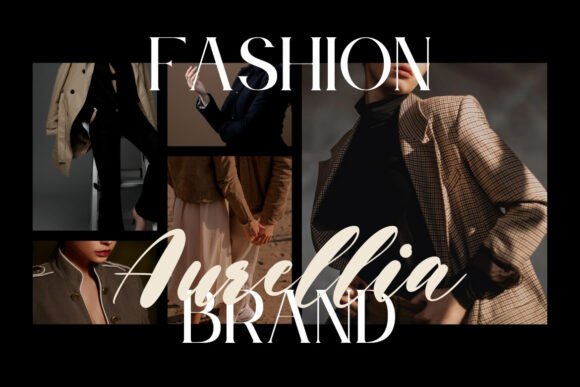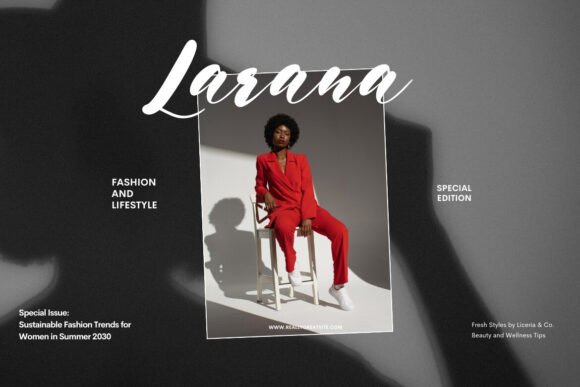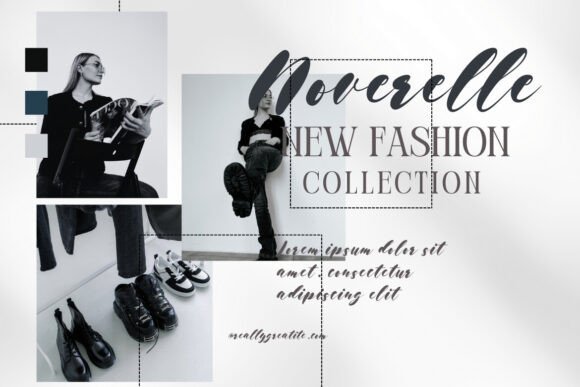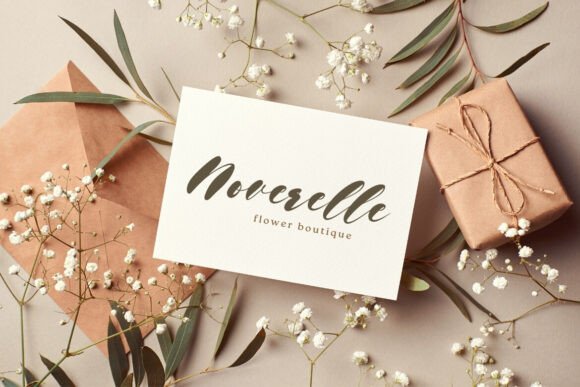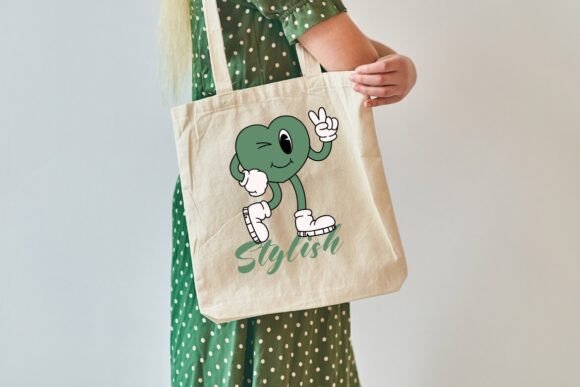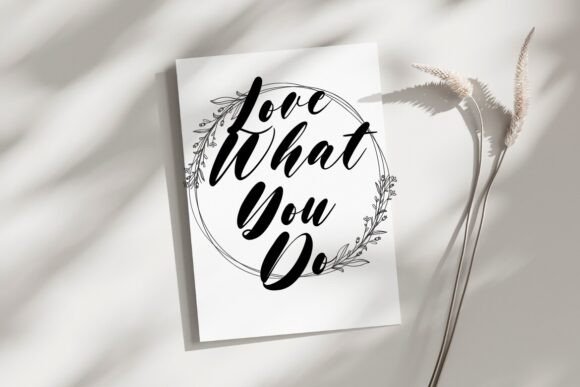
Aurellia Font: Elevate Your Designs with Elegance and Sophistication
In the world of typography, few fonts manage to capture the essence of elegance and sophistication as effortlessly as Aurellia Handwritten. This beautiful script font is designed to bring a touch of natural refinement to your designs, making it an ideal choice for creatives looking to add a dash of luxury and charm to their work. Whether you’re crafting a brand identity, designing a logo, or creating a wedding invitation, Aurellia Handwritten is the perfect companion to help you achieve your vision.
The Beauty of Aurellia Handwritten
Aurellia Handwritten boasts smooth curves and flowing strokes that exude a sense of organic sophistication. Its elegant design makes it a versatile font suitable for a wide range of applications, from high-end branding and advertising to more personal projects like wedding invitations and greeting cards. The font’s natural flow and rhythm create a sense of movement, drawing the viewer’s eye through the text and creating a lasting impression.
Timeless Charm and Modern Elegance
One of the standout features of Aurellia Handwritten is its ability to blend timeless charm with modern elegance. The font’s classic script style is reminiscent of traditional calligraphy, yet its clean lines and contemporary feel ensure it remains relevant in today’s fast-paced design landscape. This unique combination makes Aurellia Handwritten an excellent choice for designers looking to create work that feels both nostalgic and cutting-edge.
Aurellia Handwritten’s versatility is one of its greatest strengths. Here are just a few examples of how this beautiful font can be used:
- Branding and Logos: Create a lasting impression with a custom logo or brand identity that exudes elegance and sophistication.
- Wedding Invitations: Add a touch of romance and luxury to your wedding stationery with Aurellia Handwritten’s flowing script.
- Advertising and Marketing: Elevate your advertising and marketing materials with a font that commands attention and conveys refinement.
- Packaging and Product Design: Stand out on store shelves with beautifully designed packaging that features Aurellia Handwritten.
Why Choose Aurellia Handwritten?
With so many fonts available, why choose Aurellia Handwritten for your next project? Here are just a few reasons:
- Unique and Memorable: Aurellia Handwritten’s distinctive style ensures your work will stand out from the crowd.
- Elegant and Sophisticated: The font’s refined design makes it perfect for high-end branding and luxury projects.
- Versatile: Aurellia Handwritten can be used for a wide range of applications, from digital designs to print materials.
- Easy to Read: The font’s clear and flowing script makes it easy to read, even at smaller sizes.
Tips for Using Aurellia Handwritten
To get the most out of Aurellia Handwritten, here are a few tips to keep in mind:
- Pair with Contrasting Fonts: Combine Aurellia Handwritten with a clean, sans-serif font to create visual interest and hierarchy.
- Experiment with Colors: Try pairing Aurellia Handwritten with a range of colors to find the perfect match for your brand or design.
- Pay Attention to Spacing: Make sure to leave enough space between lines and around the text to allow Aurellia Handwritten’s elegant strokes to shine.
Aurellia Handwritten is a sophisticated and elegant script font that brings a touch of natural refinement to any design. Its smooth curves, flowing strokes, and timeless charm make it the perfect choice for creatives looking to add a dash of luxury and sophistication to their work. Whether you’re designing a brand identity, creating a logo, or crafting a wedding invitation, Aurellia Handwritten is the perfect companion to help you achieve your vision.